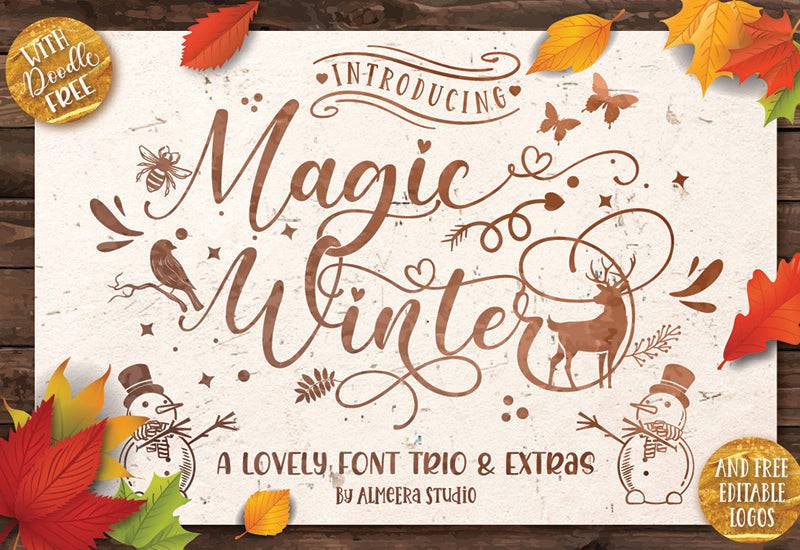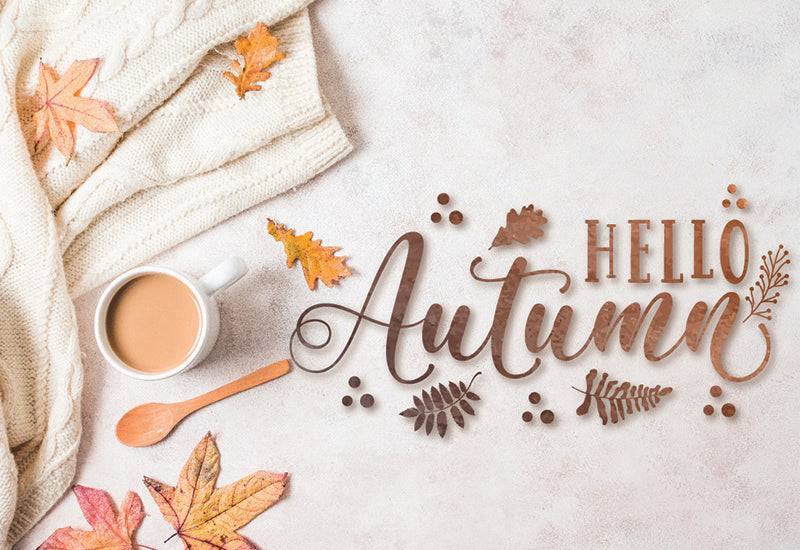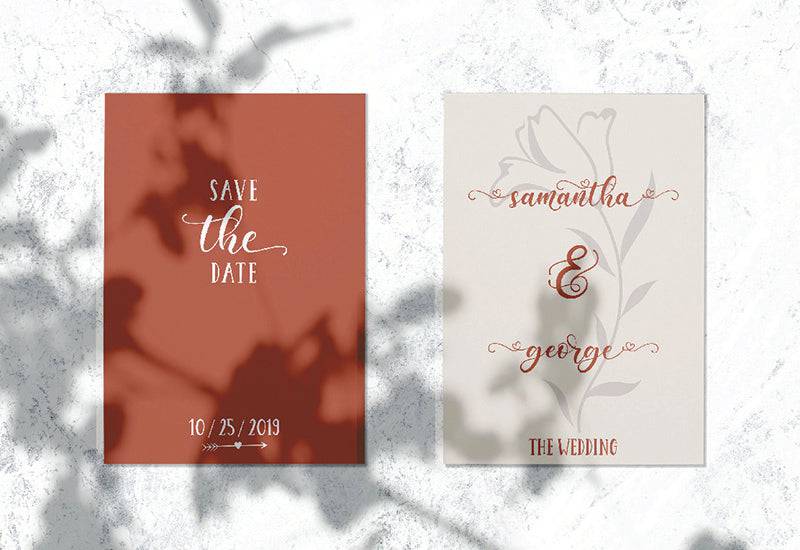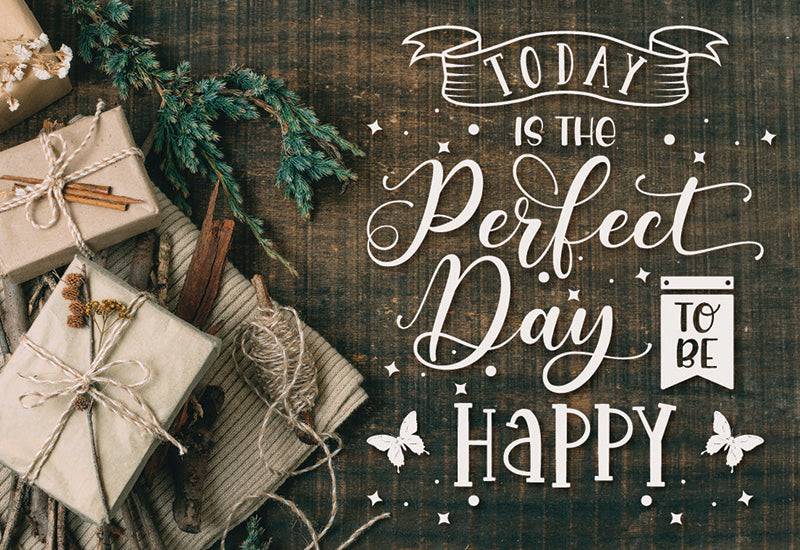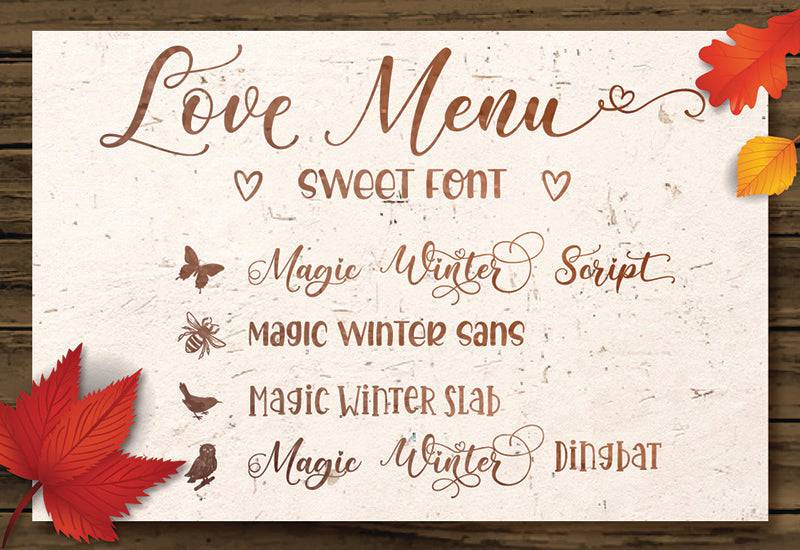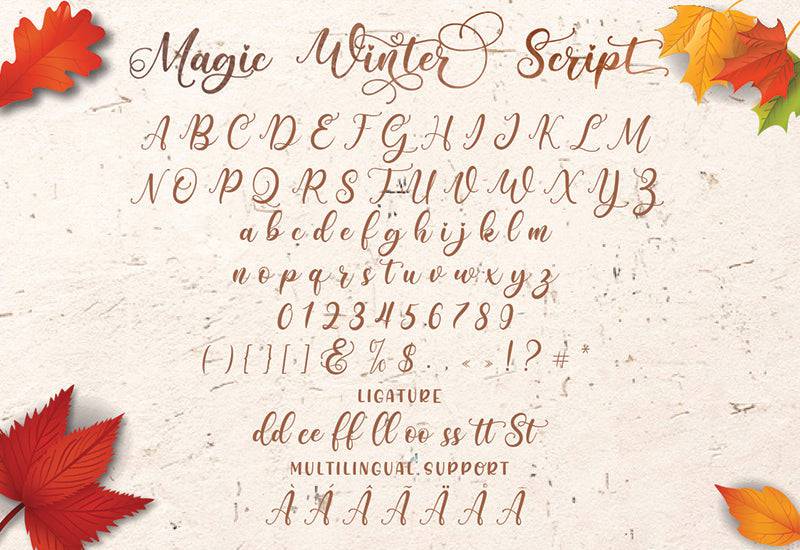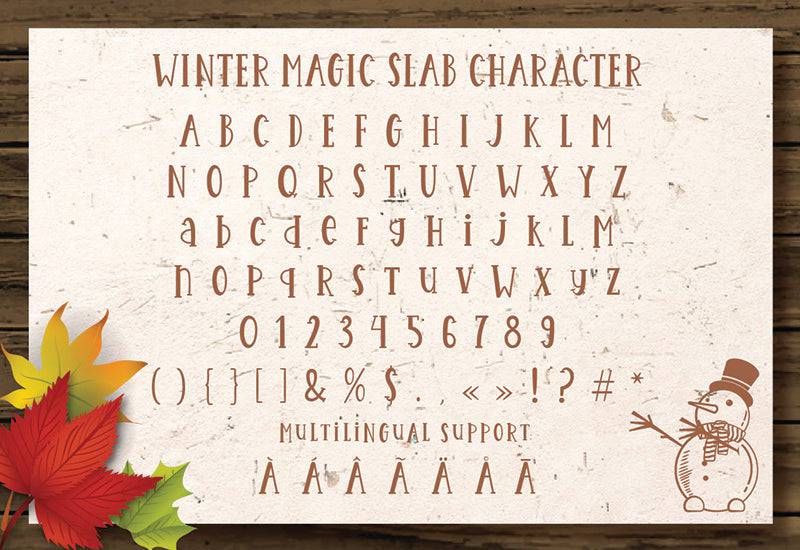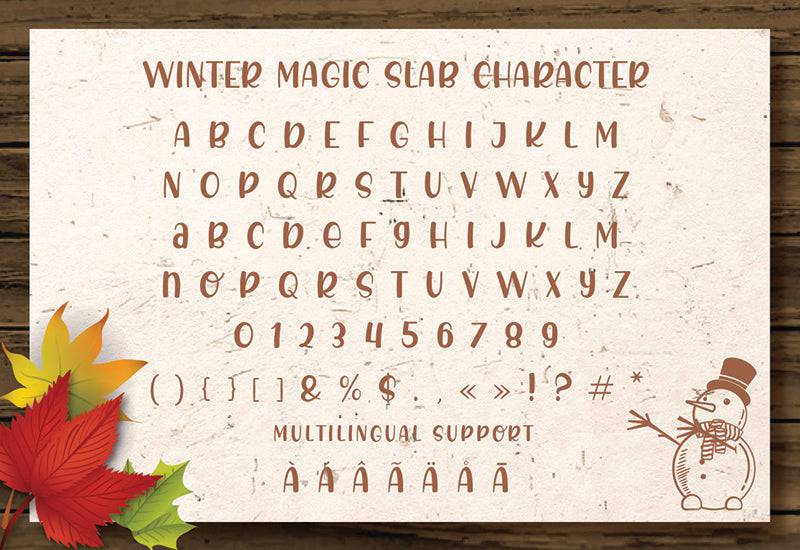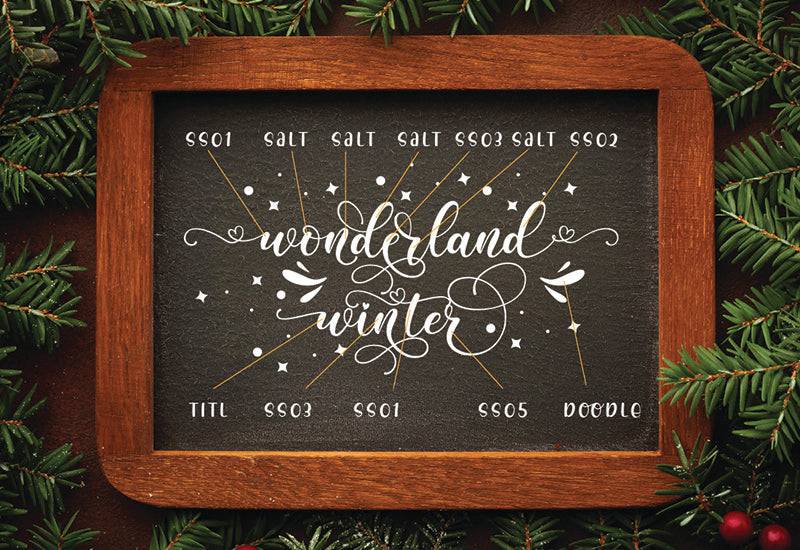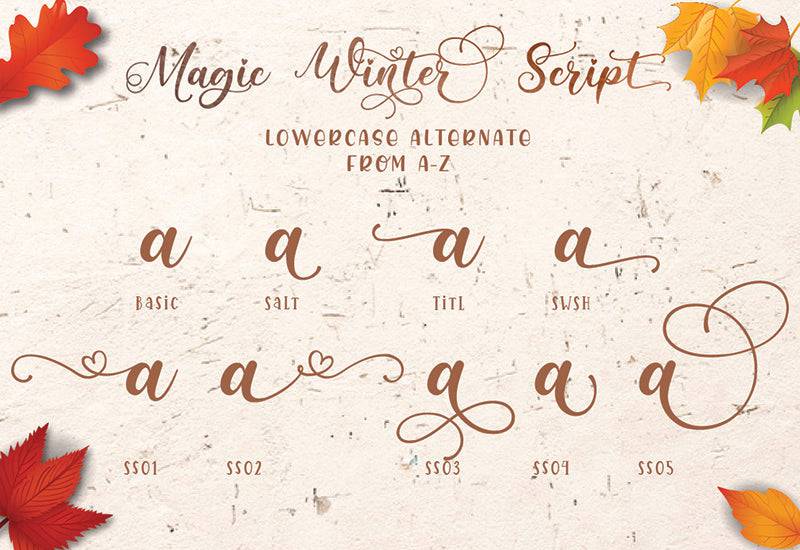
Looking for a font that matches your winter-themed designs?
Magic Winter script font comes with hundreds of OpenType Stylistic alternates making it a versatile font for festival-themed logos, clothing, winter, quotes, invitations, posters and many more!